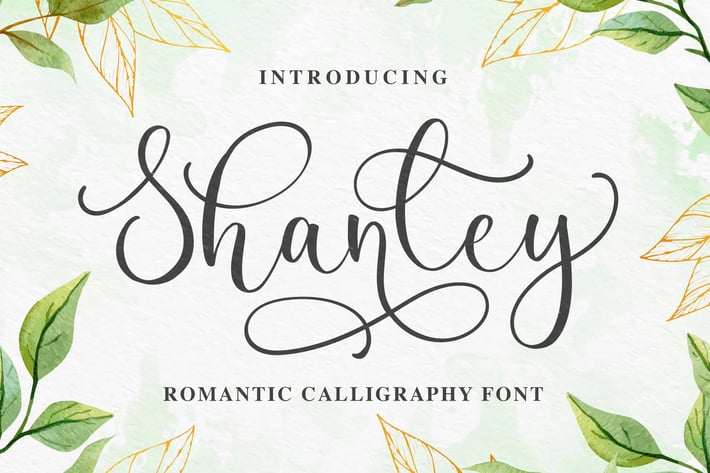
Shanley - Romantic Calligraphy Font
Introducing of our new product the name is Shanley Romantic Calligraphy Font. Shanley inspired by modern calligraphy style this font is a fun theme very good for display, wedding, valentine theme, logotype and etc
MULTILINGUAL ACCENT :
ØÆøæ¢ÐŒœÁĂÂÀÄĄÅÃǼĆČÇĈĊĎÉĔĚÊËĖÈĘĞĜĢĠĤÍĬÎÏİÌĮĨĴĶĹĽĻĿŃŇŅÑÓŎÔÖÒŐǾÕŔŘŖŚŠŞŜȘŤŢÚŬÛÜÙŰŲŮŨẂŴẄẀÝŶŸỲŹŽŻáăâäàąåãǽćčçĉċďéĕěêëėèęğĝģġĥíîïìįĩĵķĺľļŀńʼnňņñóŏôöòőǿõŕřŗśšşŝșťţŭûüűùųůũẃŵẅẁýŷÿỳźžż